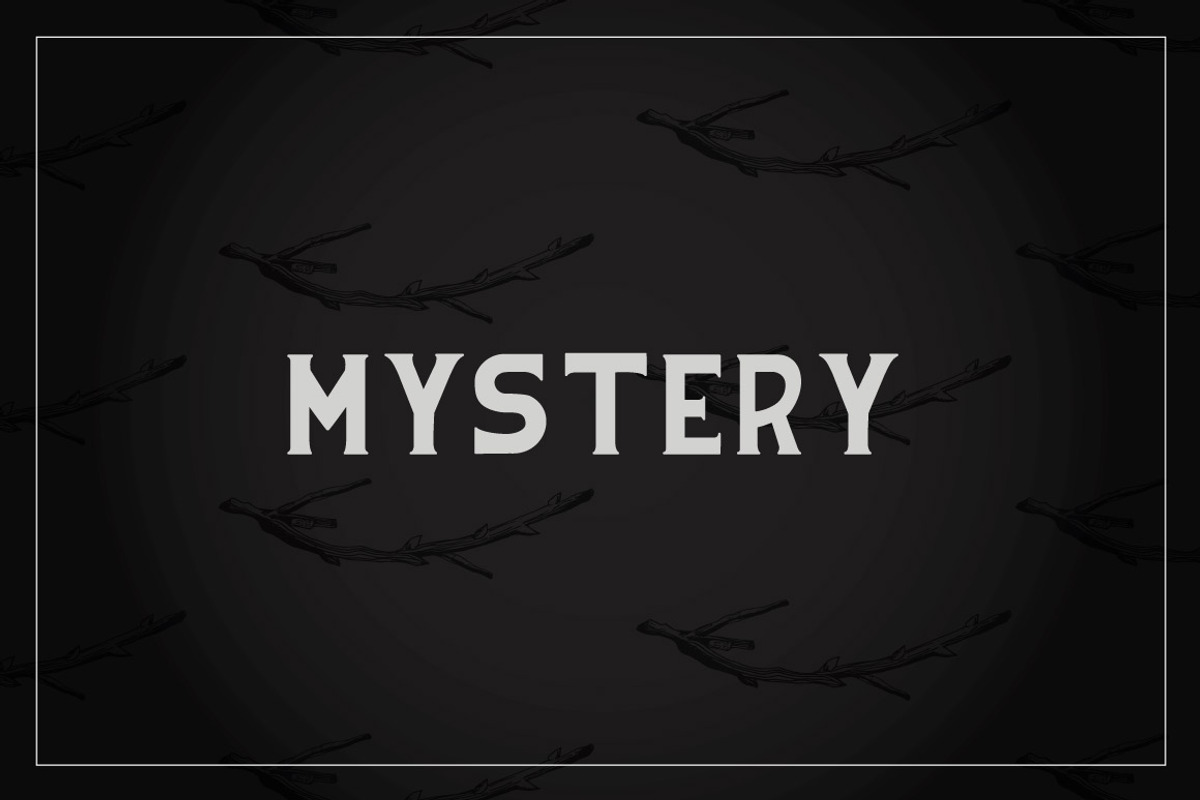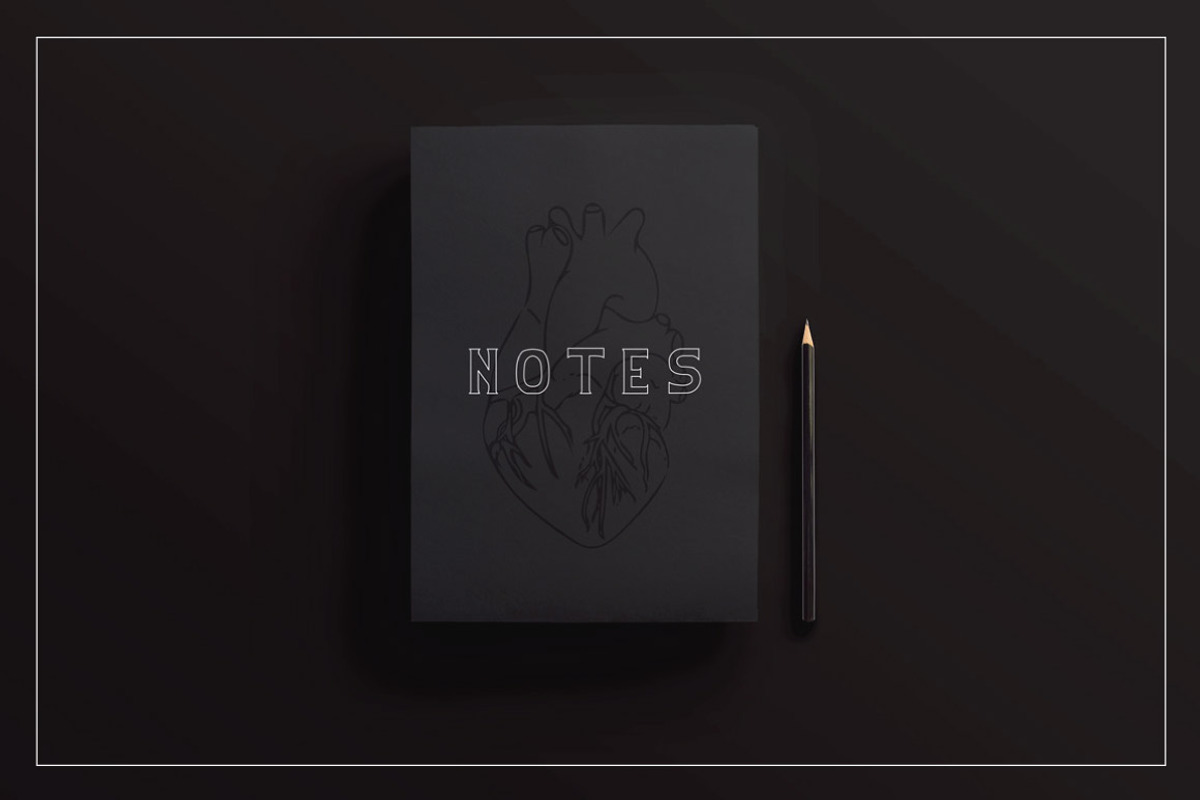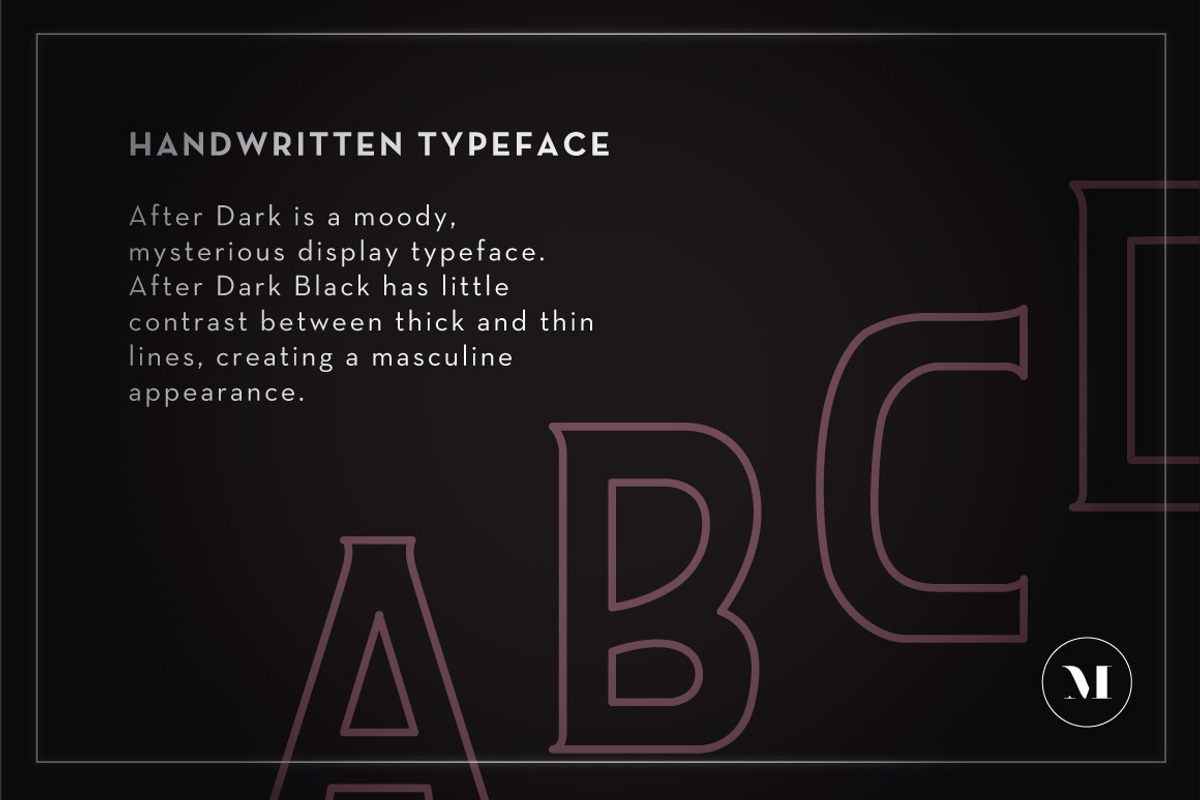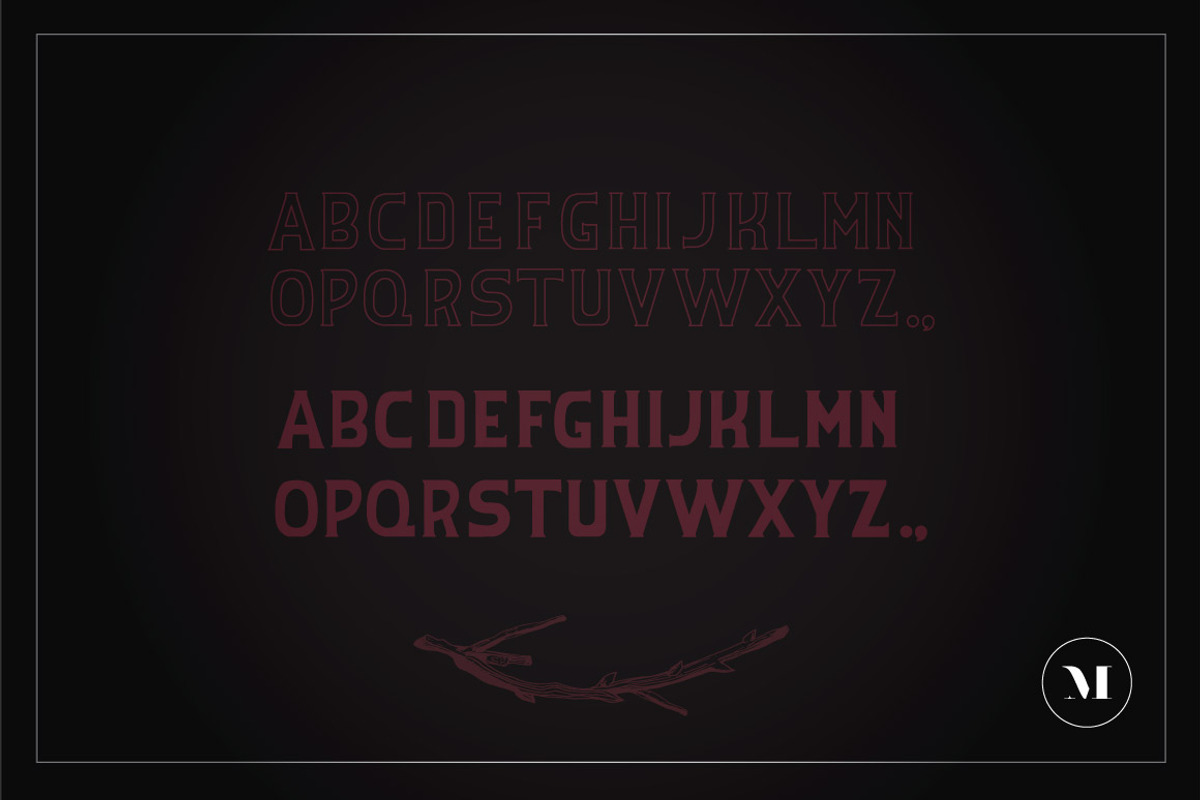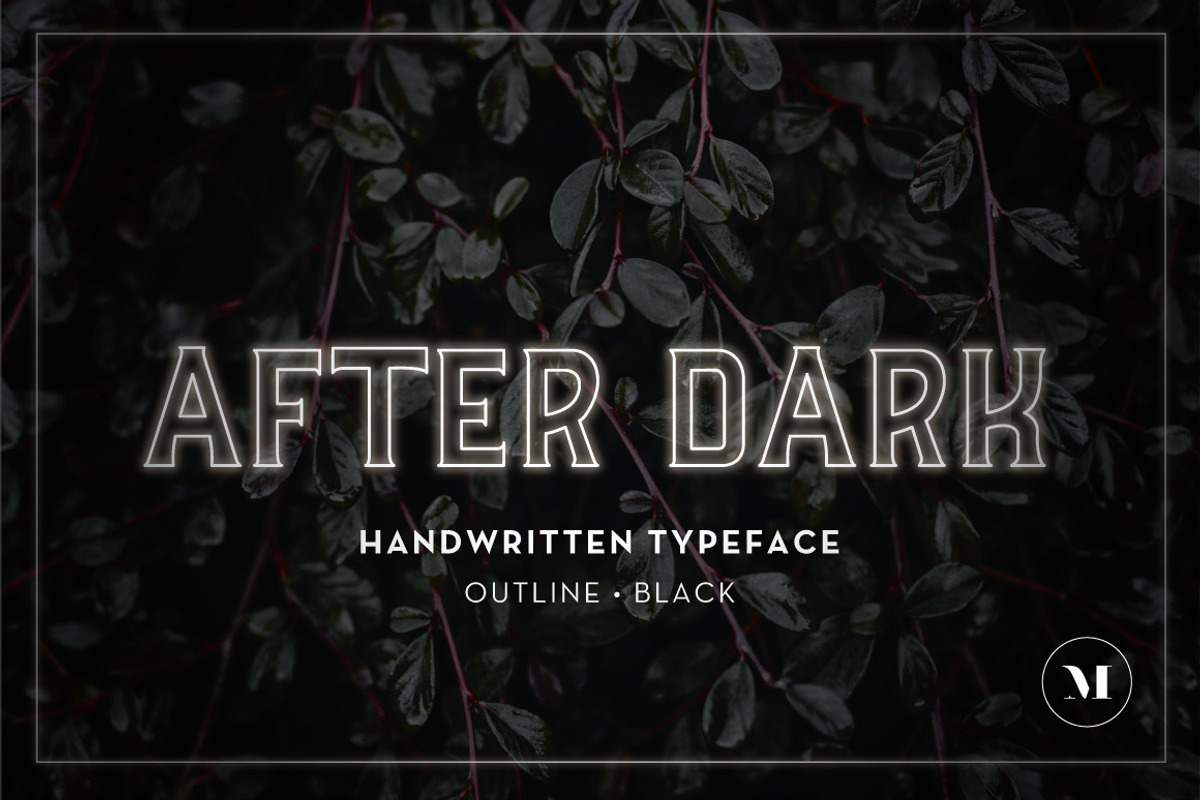
After Dark Typeface
After Dark Typeface by QuixoticDesignCo is a font selected for branding, posters, packaging, typography.
Why After Dark Typeface is worth a look
After Dark Typeface by QuixoticDesignCo fits naturally into Branding, posters, packaging, typography.